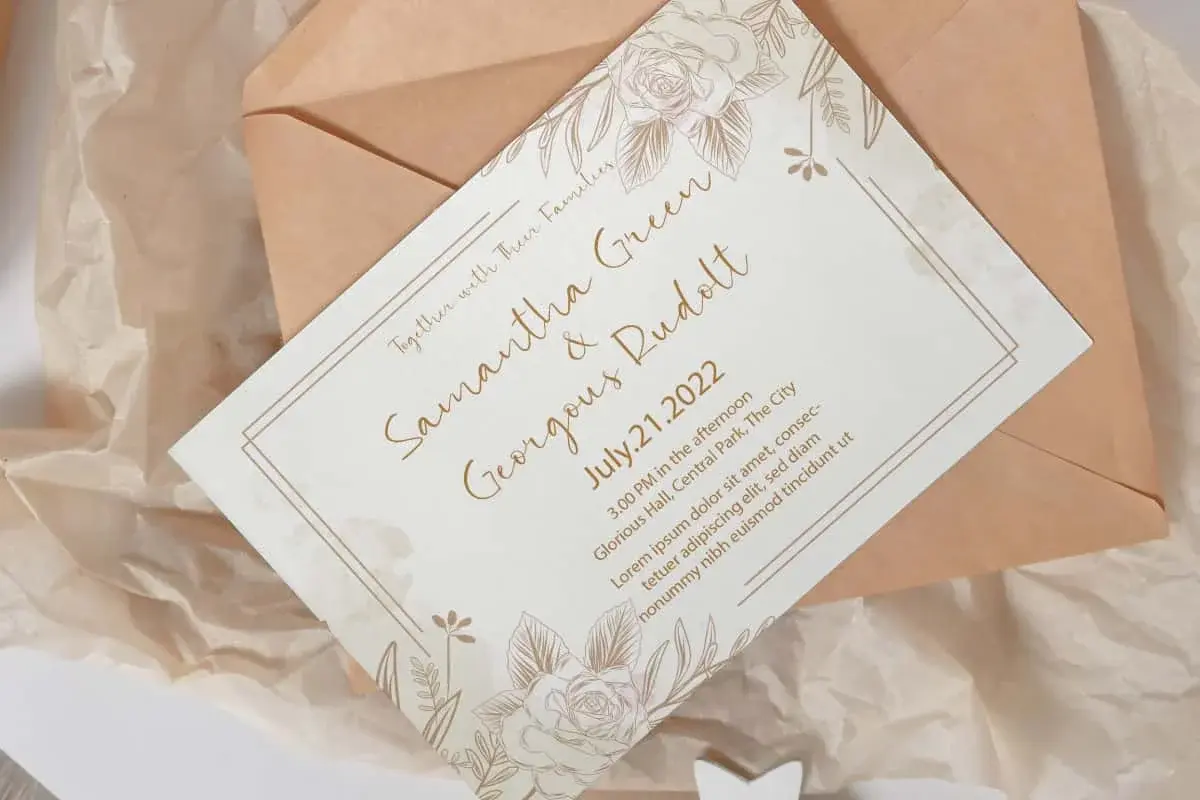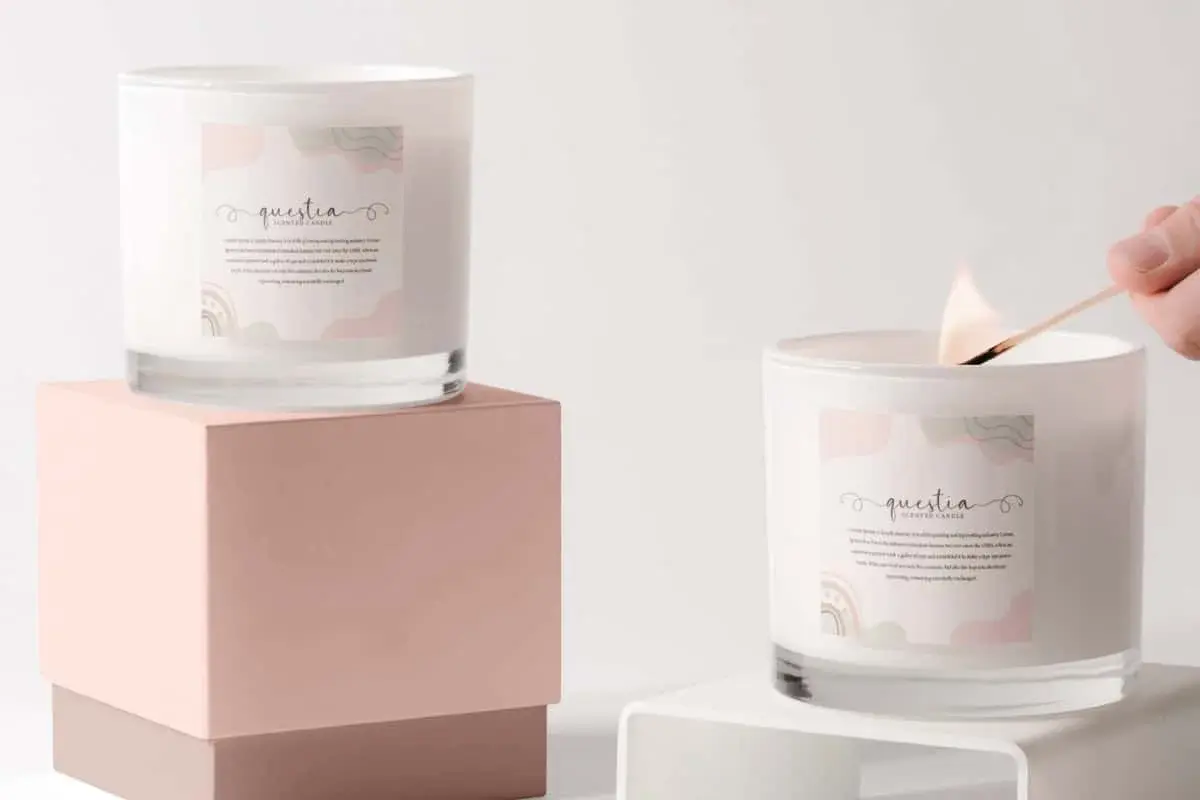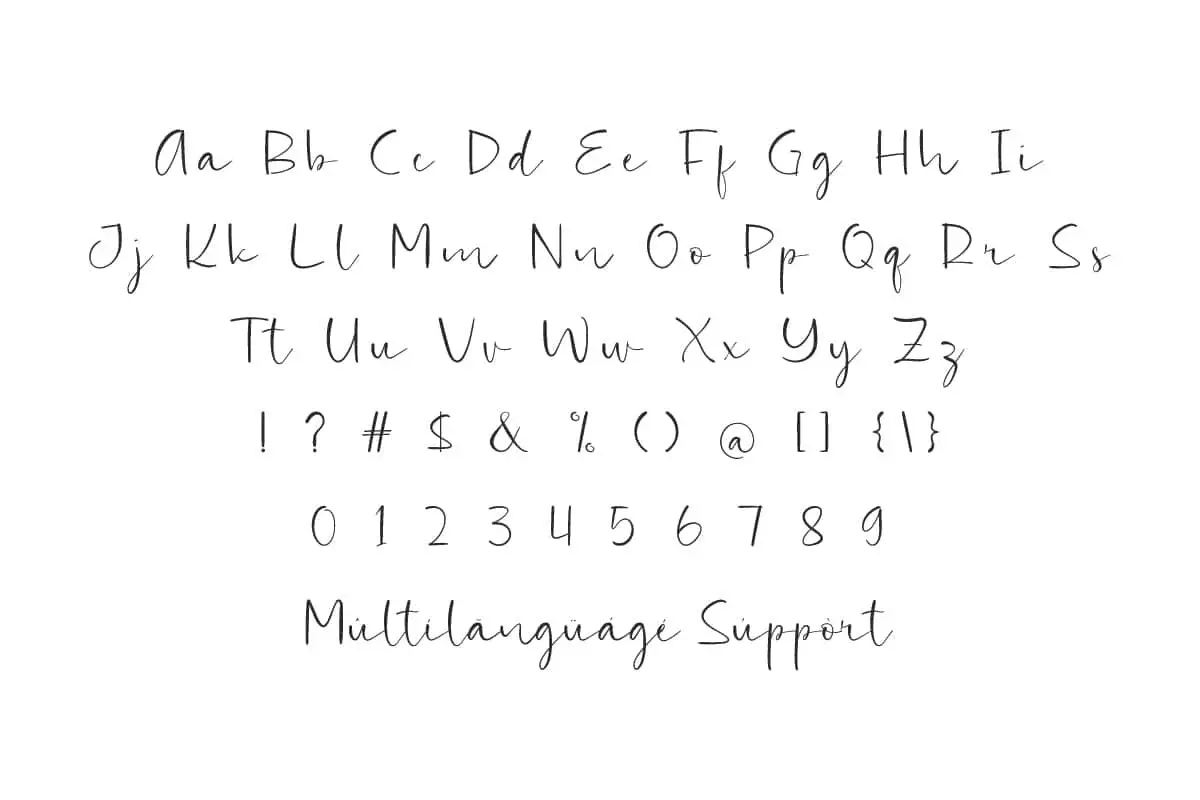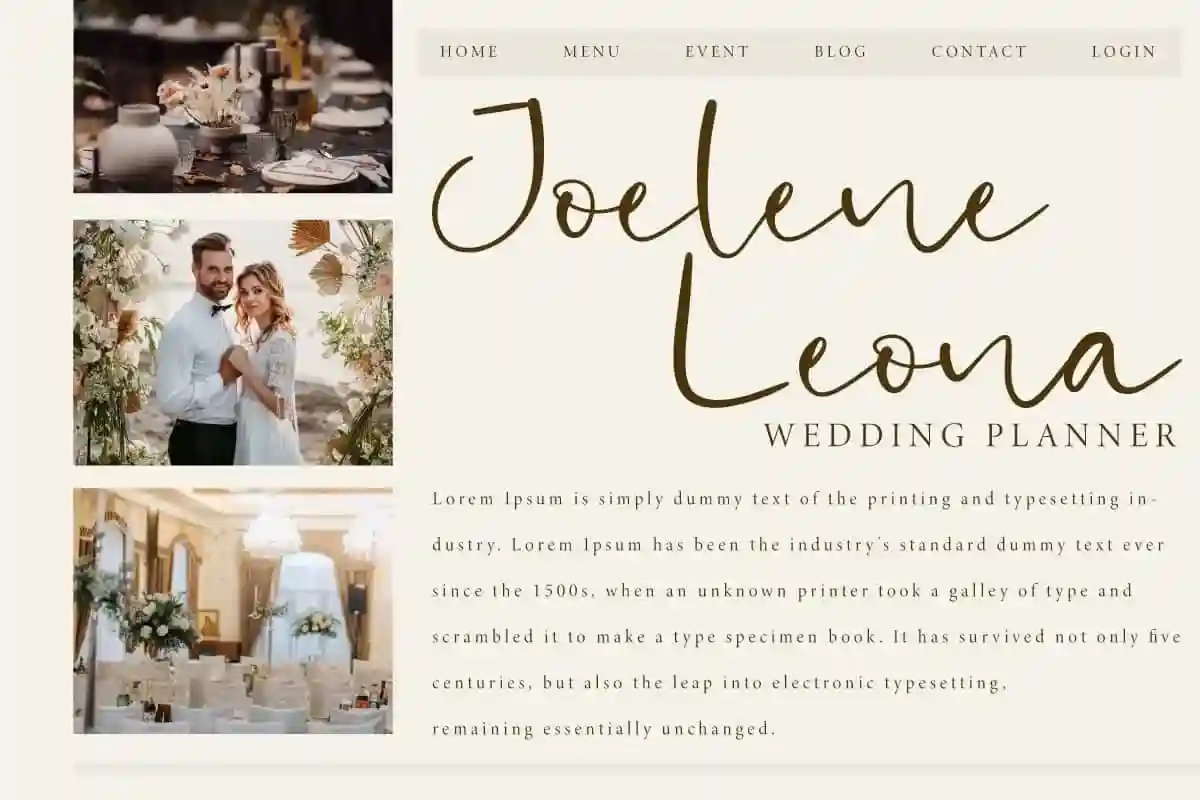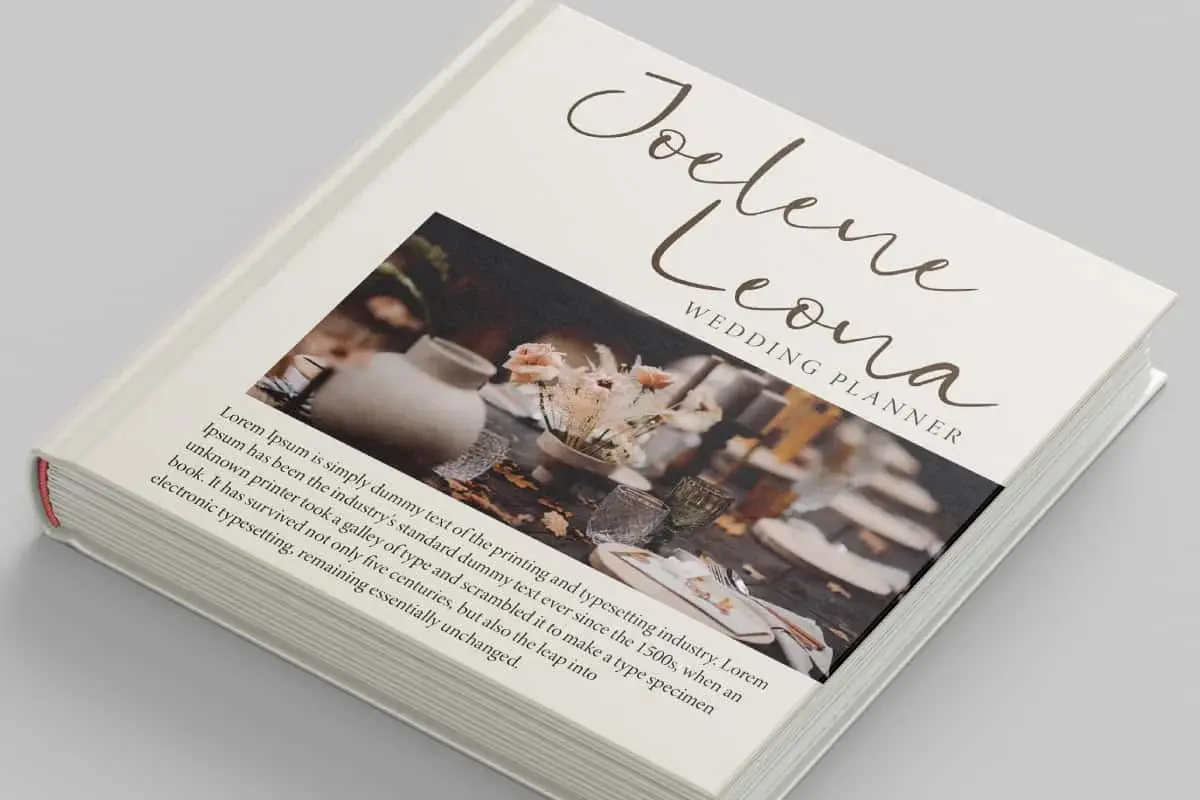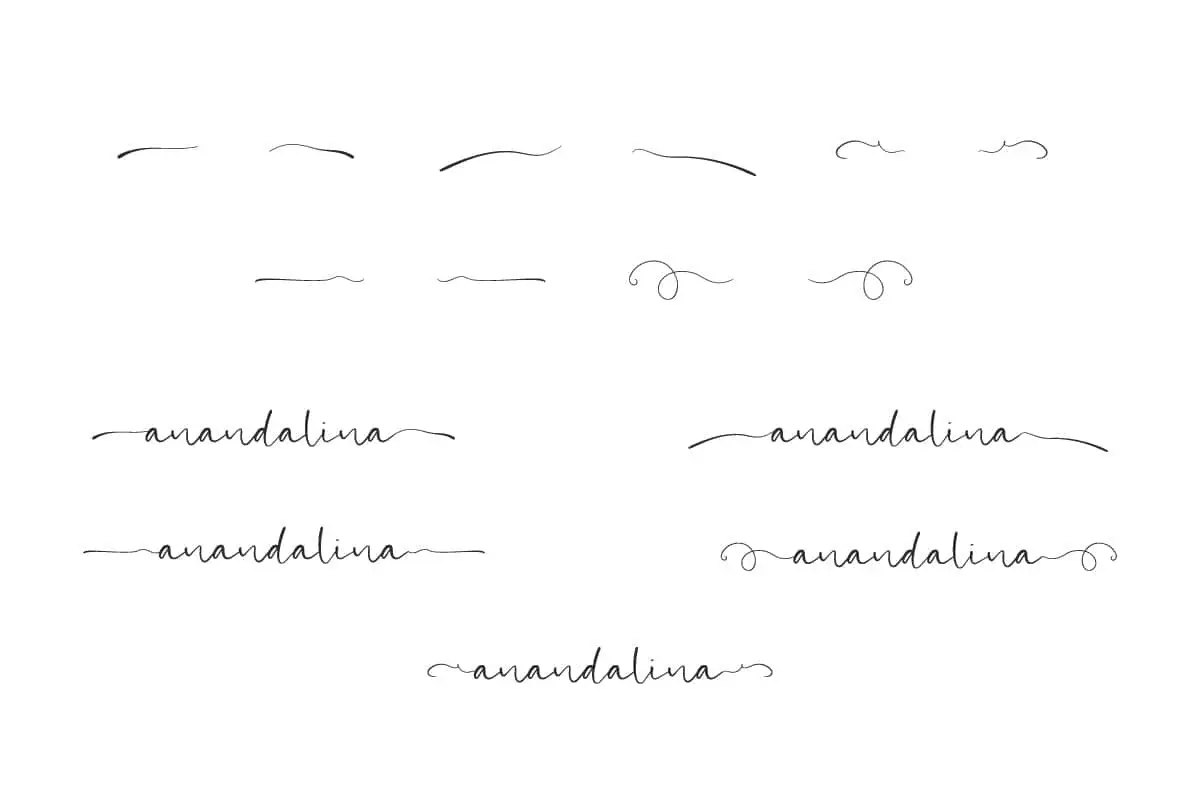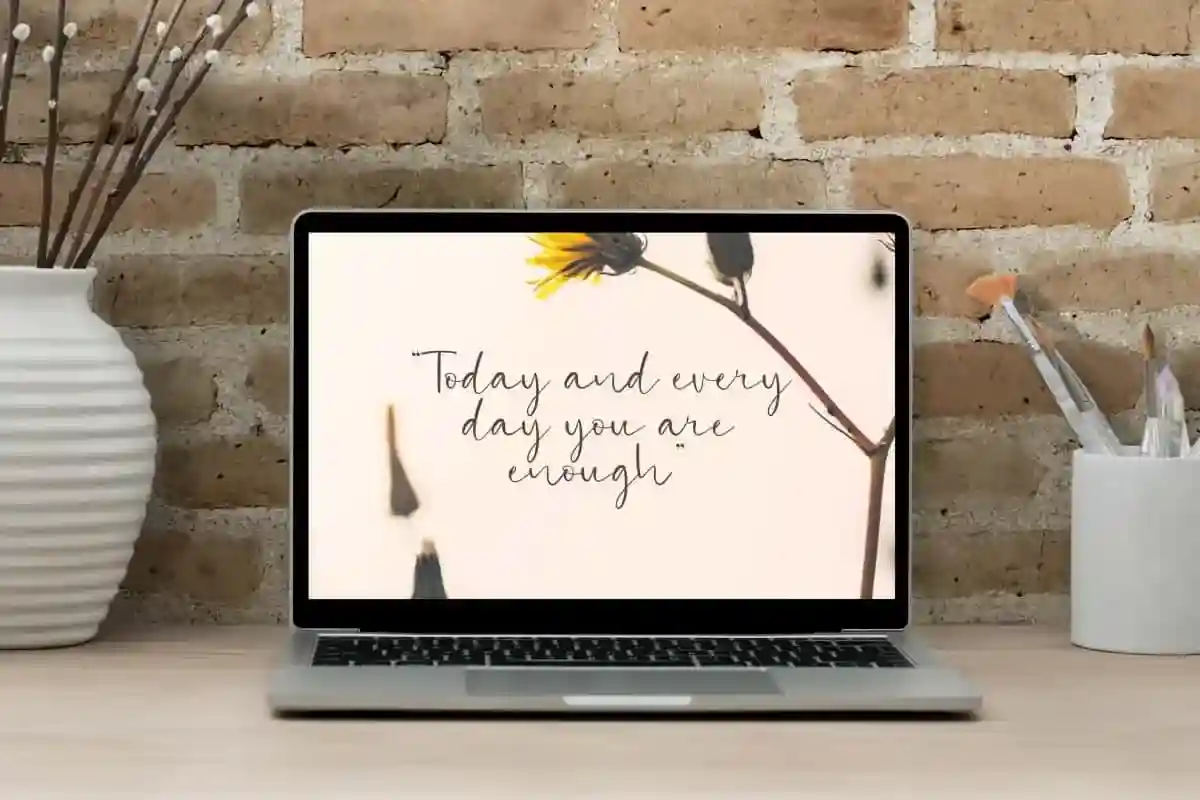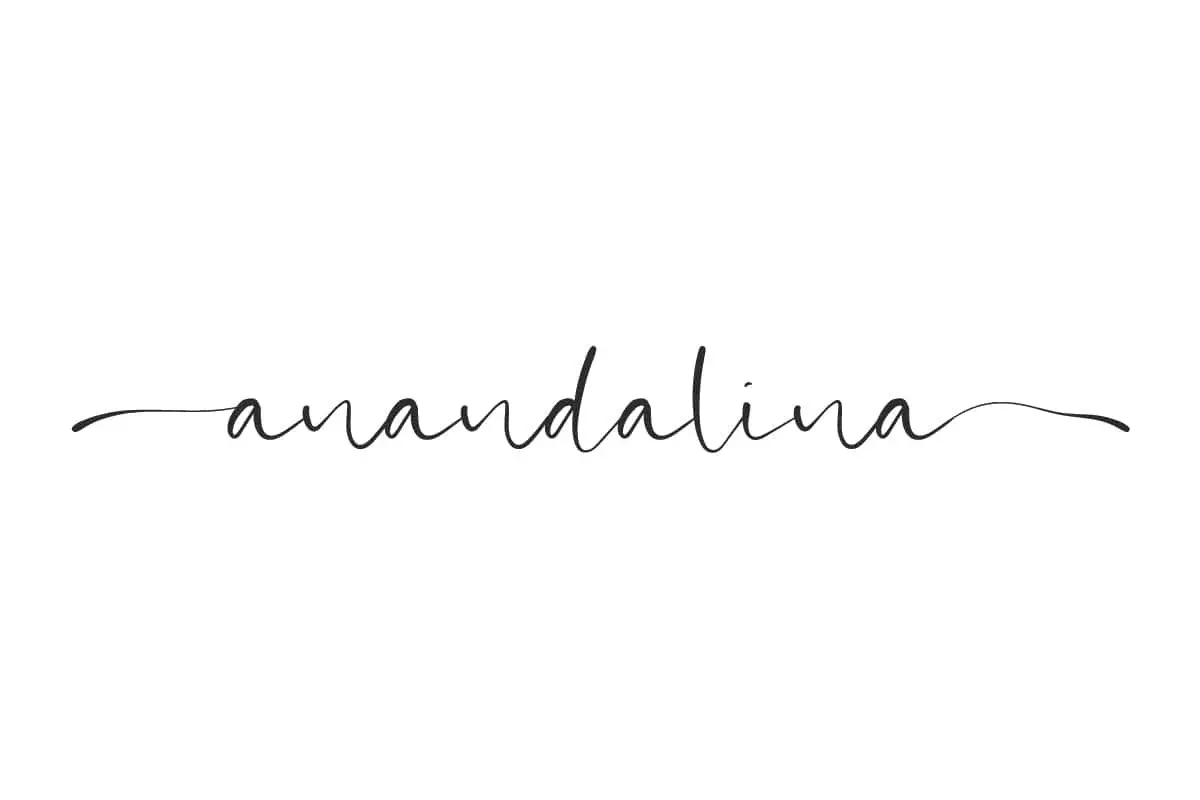
Anandalina Font is a beautiful graceful handwriting with its simplicity! With Alternate and supporting Swoosh perfect to express any word!
Anandalina Font is  Handwriting a delicate beautiful graceful font with a touch of modern style. Supported by many additional characters that are beautiful and easy, this allows you to freely explore the beauty of the display when connecting the desired words. Perfect for blogs, covers, invitations, label, logo, mockup, packaging product, quotes, stationery, stickers, template, title, website, and more!
Anandalina Font includes a complete set of Basic Uppercase and Lowercase Characters, Numbers, Punctuation Marks and Symbols. It also includes a set of Ligatures and Swoosh that will add artistic value to whatever your business will be, such as advertising, beauty product, event organizer, graphic design, printing, publishing, writer, wedding organizer, and many more.